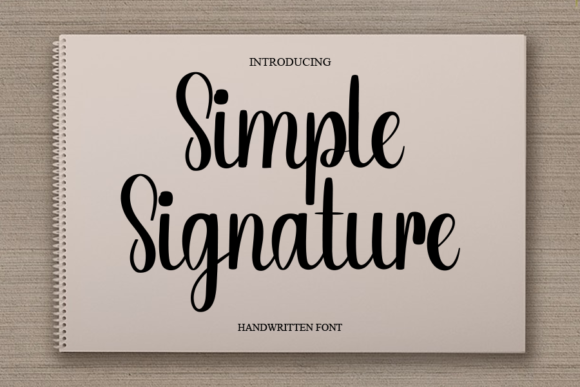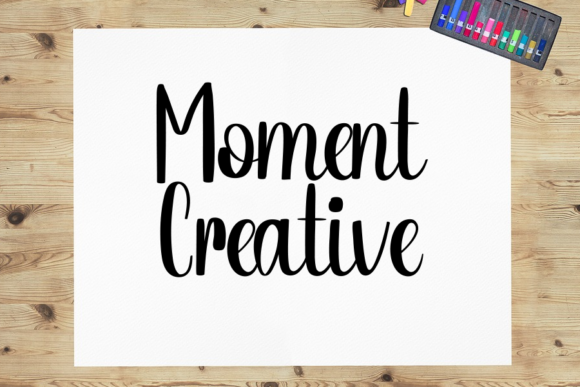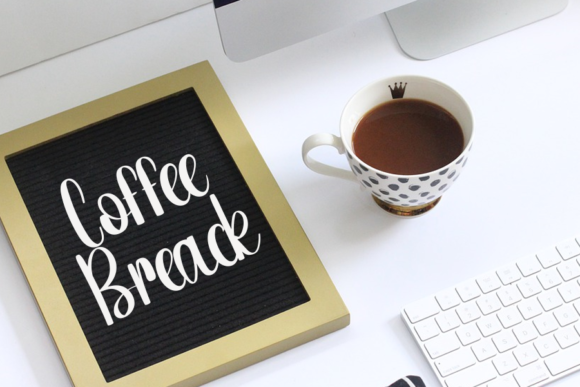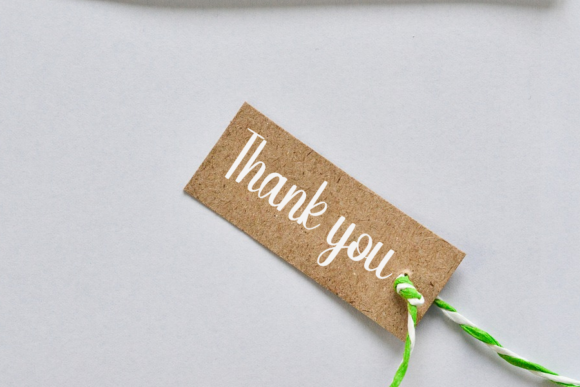
Simple Signature Font
About Simple Signature Font
Simple Signature is an enchanting handwritten font. This versatile font has a wide spectrum of applications ranging from greeting cards to headlines and is guaranteed to add a romantic feel to your next project!